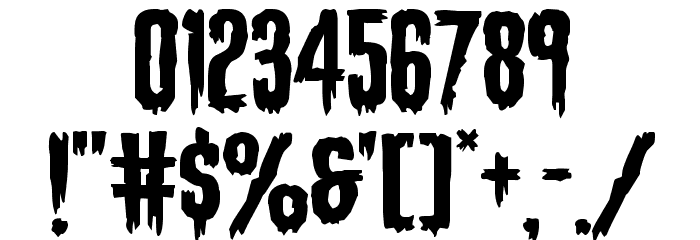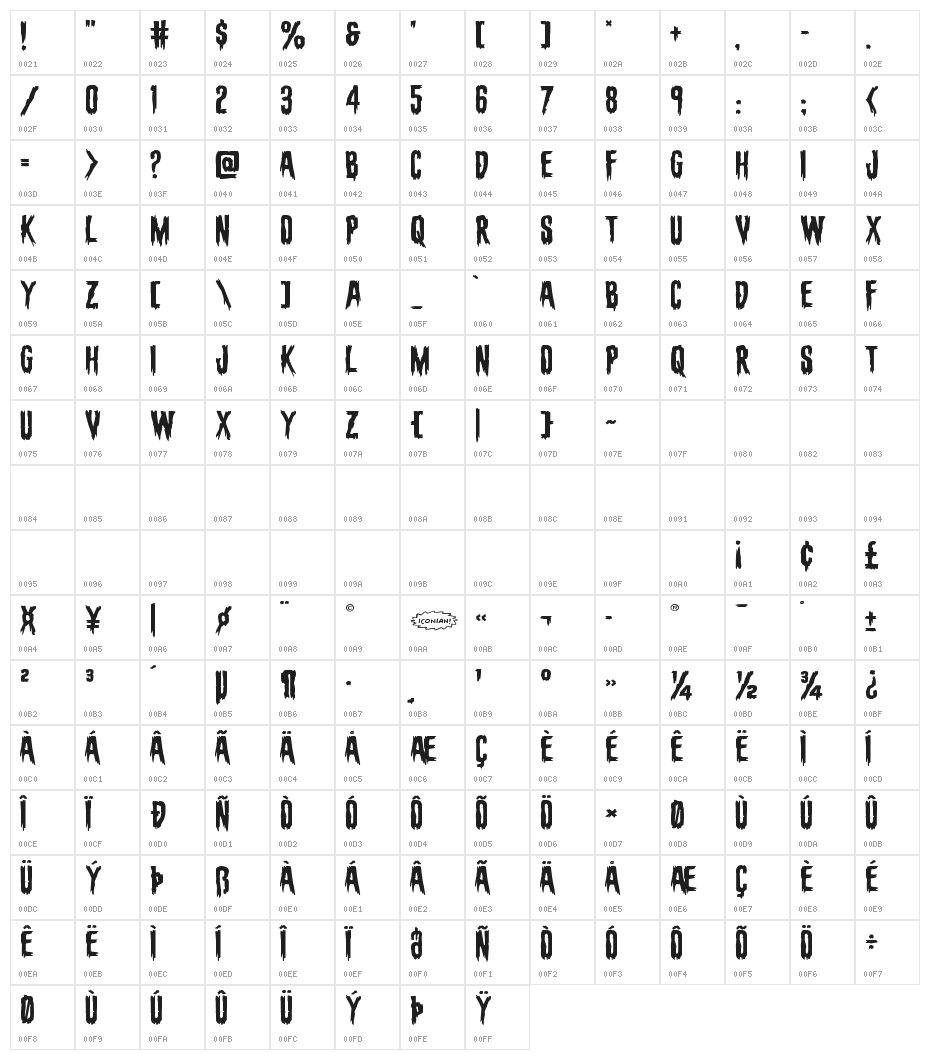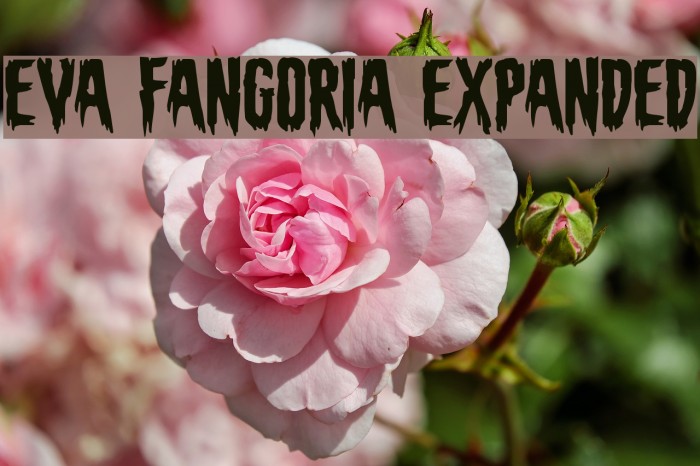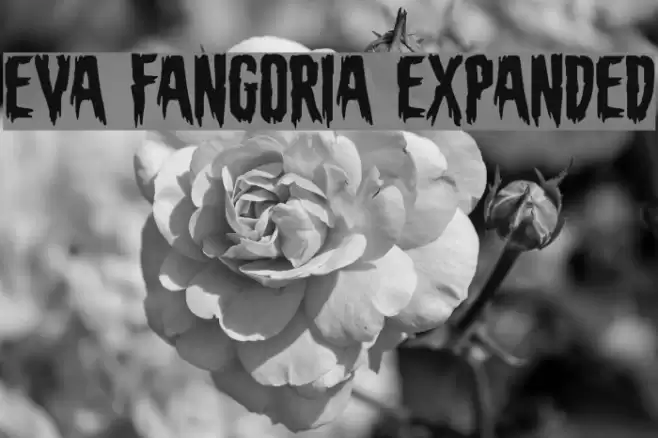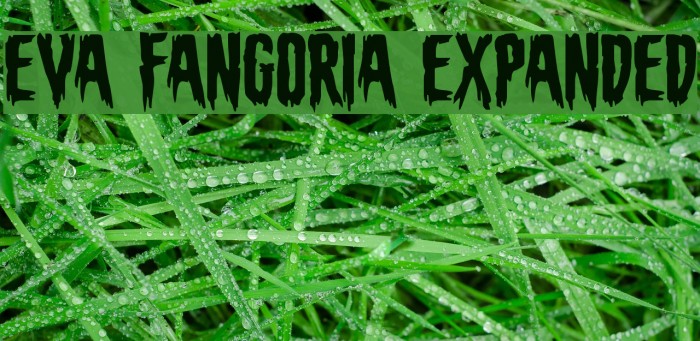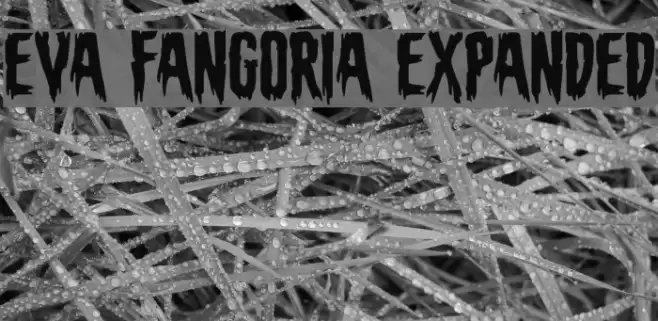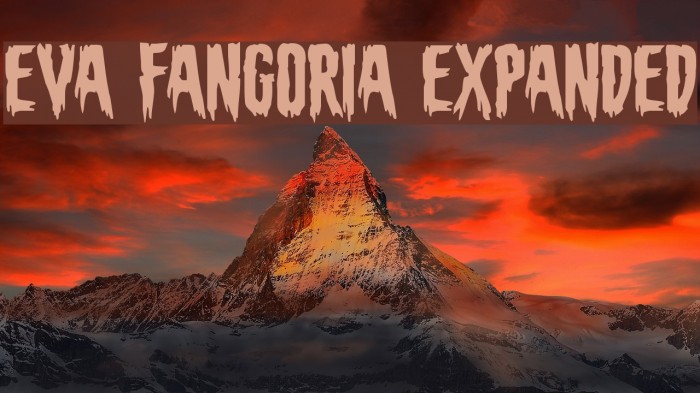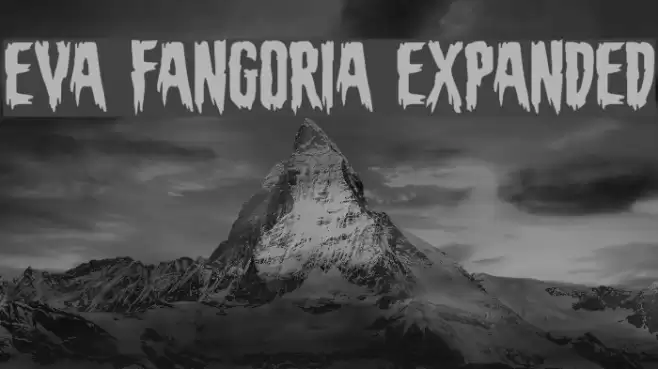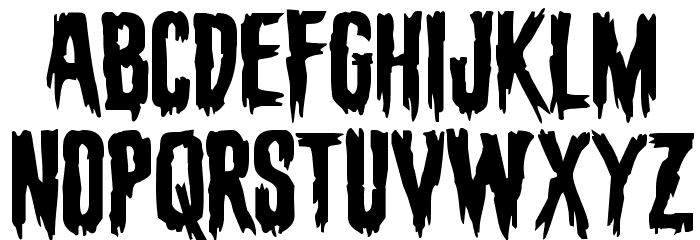
Eva Fangoria Expanded Font
Eva Fangoria Expanded Description
This font features a bold and jagged design, reminiscent of horror and thriller themes. The characters have an irregular, torn appearance, giving them a dramatic and intense look. The uppercase and lowercase letters maintain a consistent style, with sharp edges and uneven strokes that create a sense of movement and chaos. The numbers and special characters follow the same aesthetic, ensuring a cohesive look across all text elements. This font is perfect for projects that require a strong, eye-catching display with a touch of the macabre.